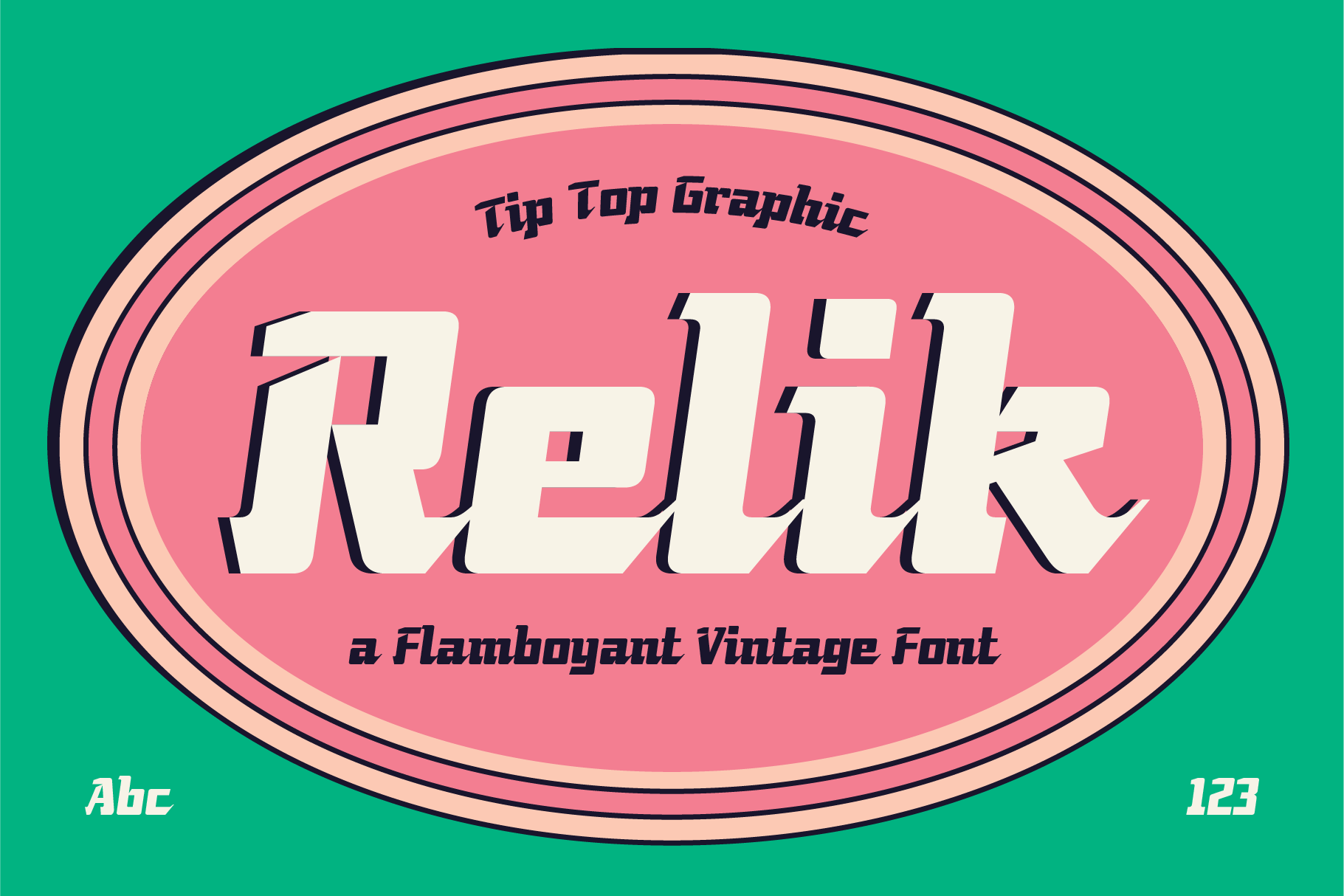
Relik - Flamboyant Vintage Font
Relik – Flamboyant Vintage Font
Relik is a bold and expressive typeface that brings a striking vintage charm with a modern twist. Designed with dynamic slanted forms and eye-catching details, this font captures the essence of retro aesthetics while maintaining a fresh, stylish appeal. Its flamboyant personality makes it perfect for designs that need to stand out whether you’re working on branding, posters, packaging, or editorial layouts.
With its unique curves and energetic flow, Relik delivers a strong visual impact and adds character to every word. It’s especially suited for projects that embrace nostalgia, creativity, and bold expression.